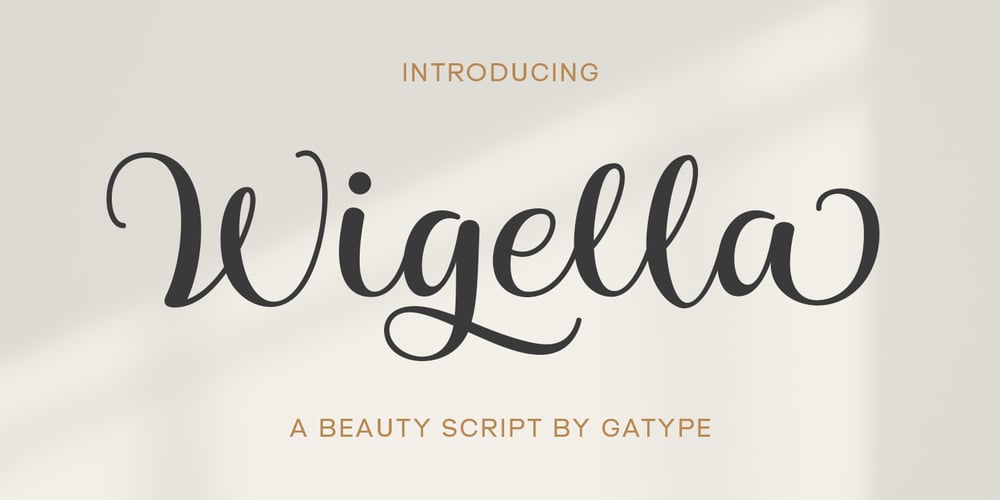
Wigella Font Family was designed by khaidir and published by Gatype. Wigella contains 1 styles and family package options. Wigella is an elegant and stylish script font, often used for designs that require a feminine, romantic, or artistic touch.This font has a smooth, curved handwritten form with a classic accent. The lines are soft, flowing naturally, creating a friendly and aesthetic impression. Suitable for wedding invitations, greeting cards, logo designs, branding, quotes, and decorative posters.Wigella creates a warm, graceful, and personal atmosphere, making it a popular choice for designs that want to leave a lasting impression.